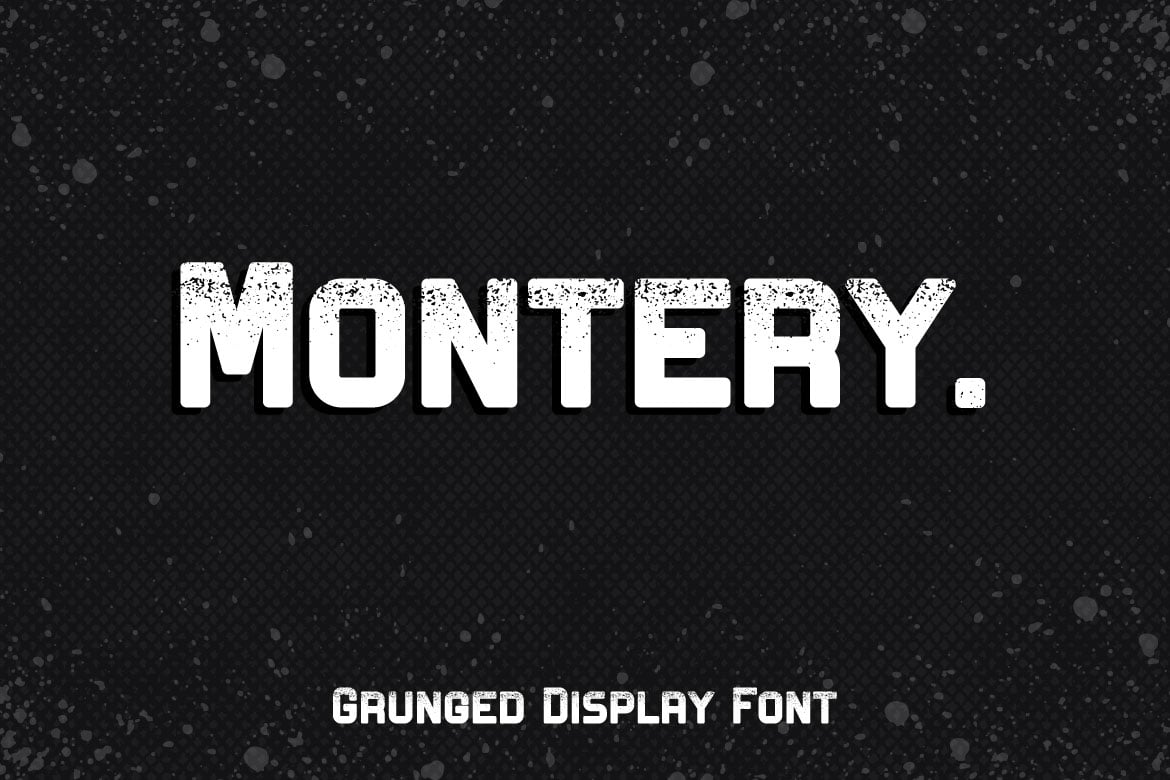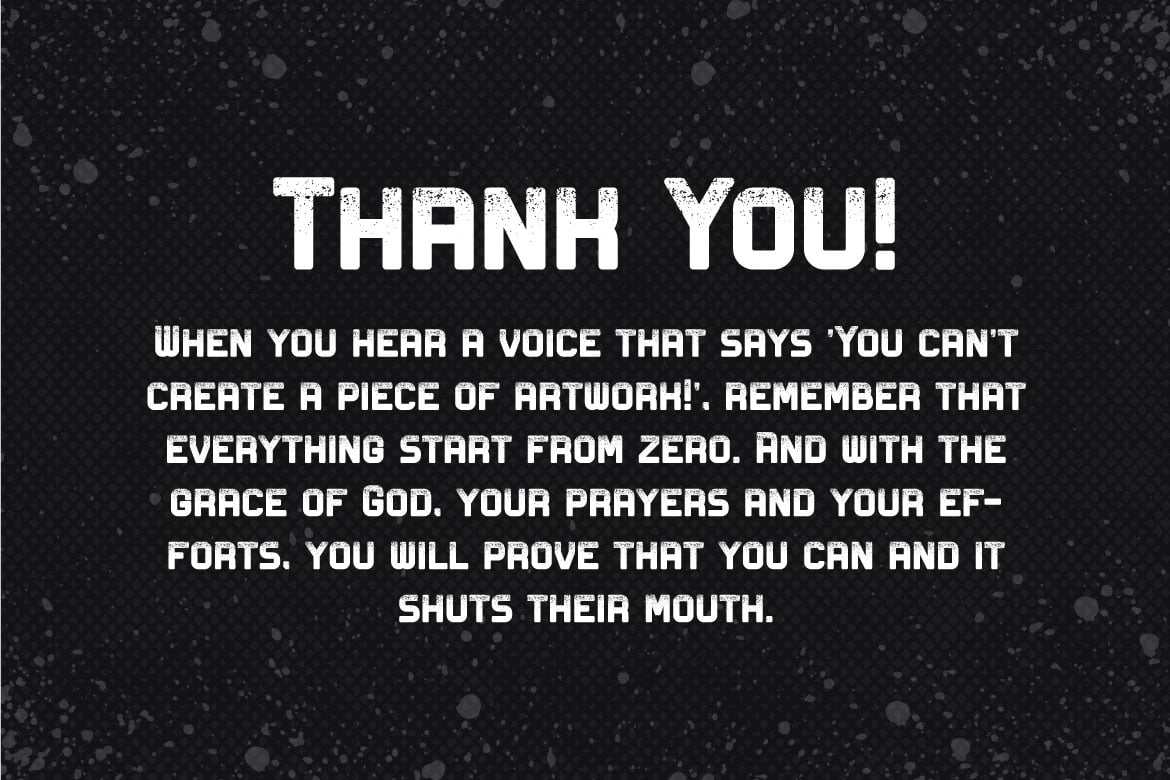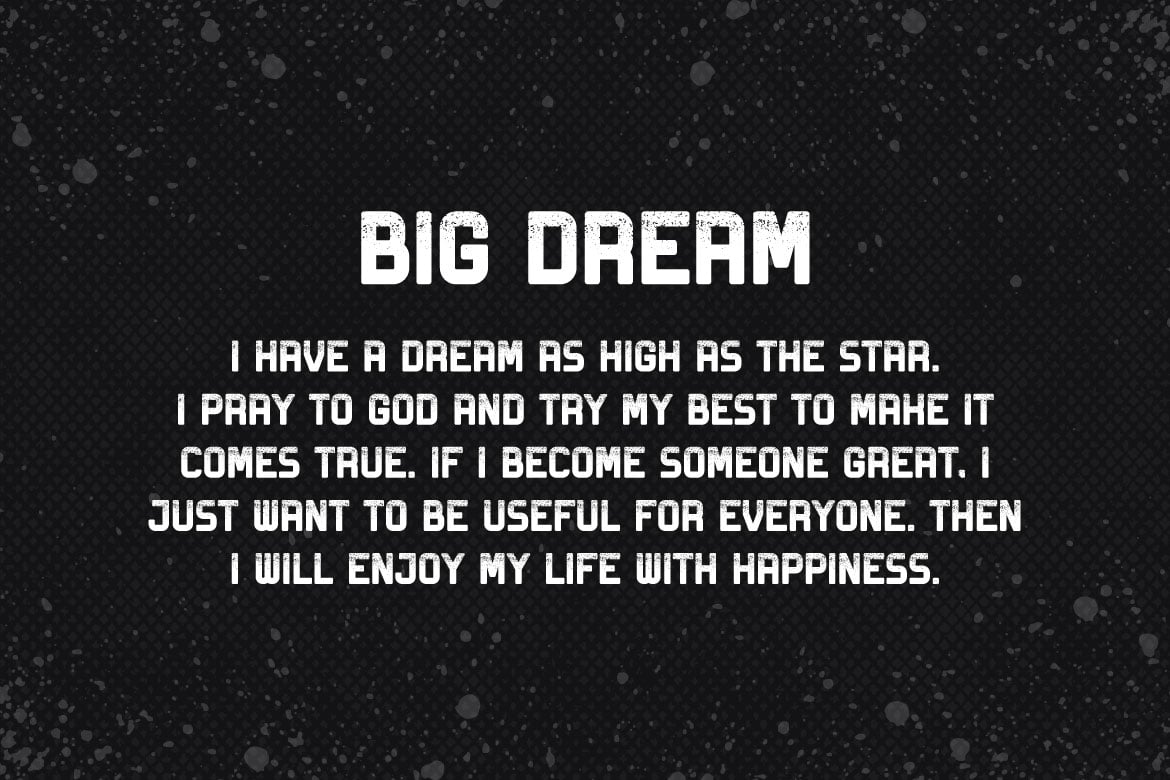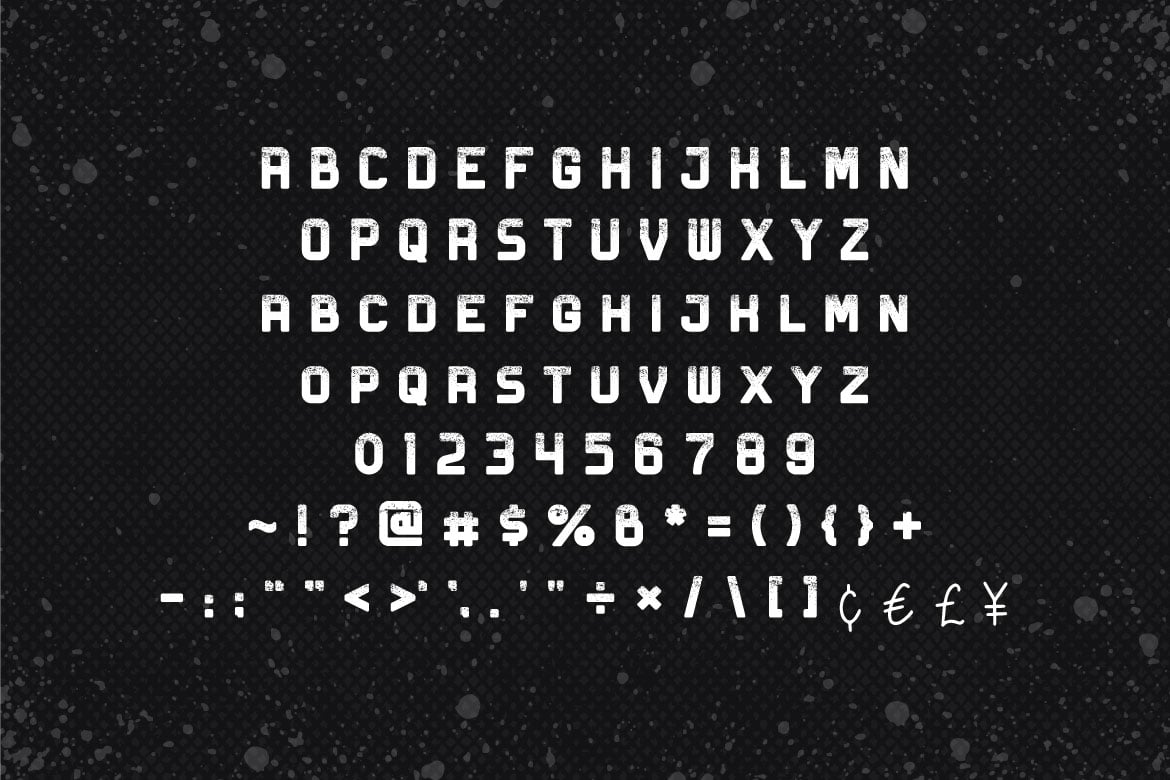
Montery – Grunge Bold Font
Hello! MONTERY is a modern and bold font with grunge effect.
Montery can be used in any works such as flyer, book title, advertisement, social media content, logo and many more.